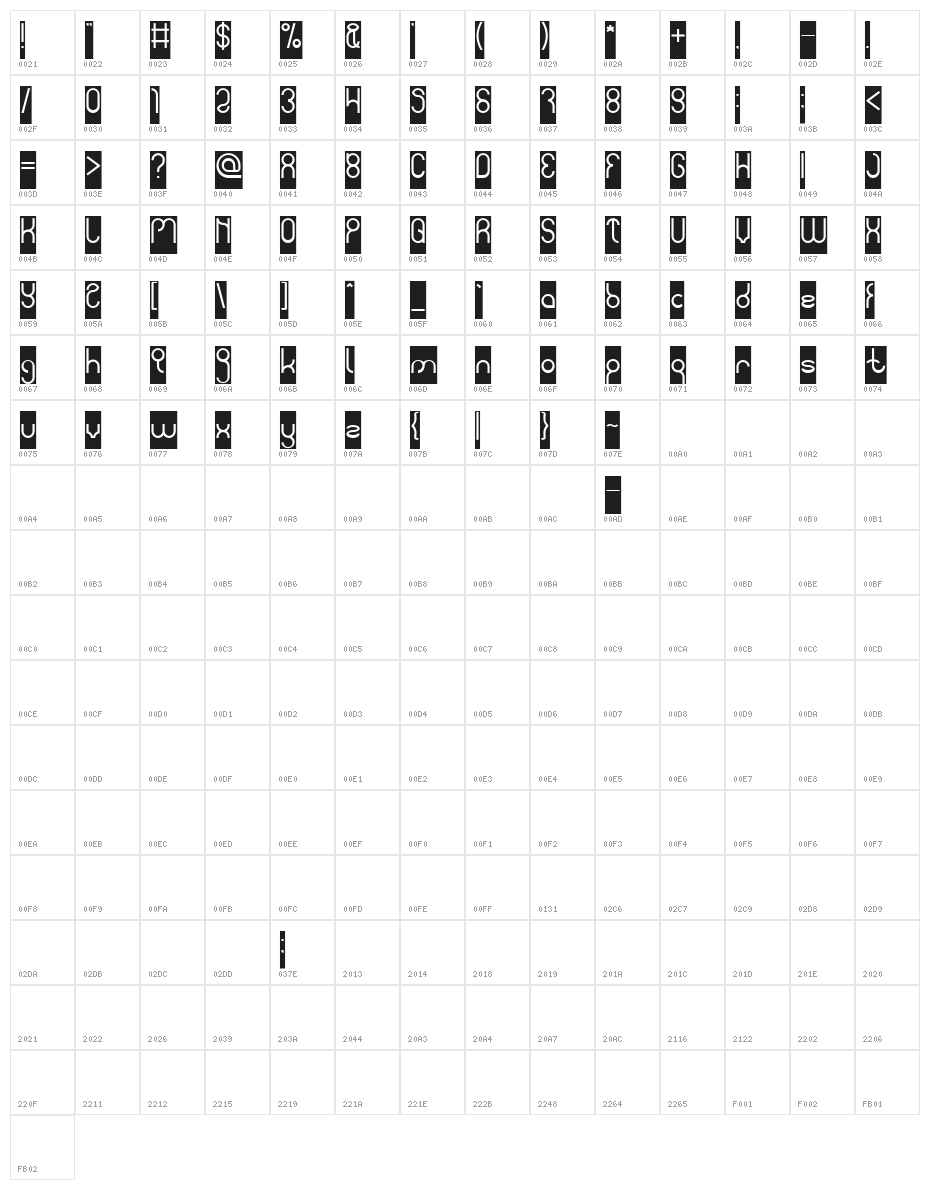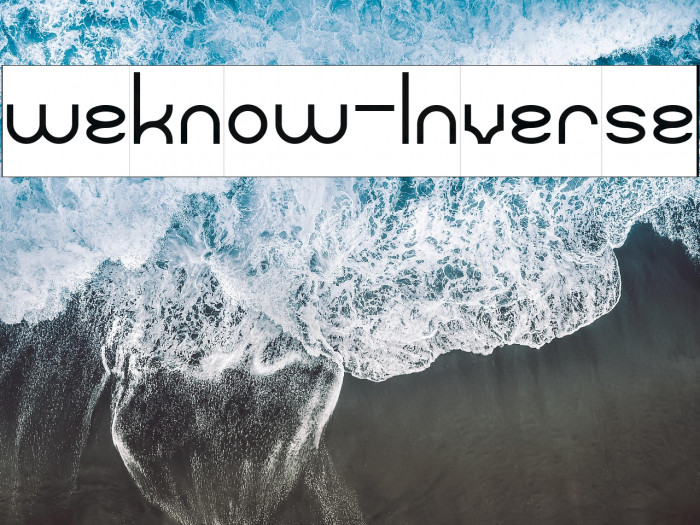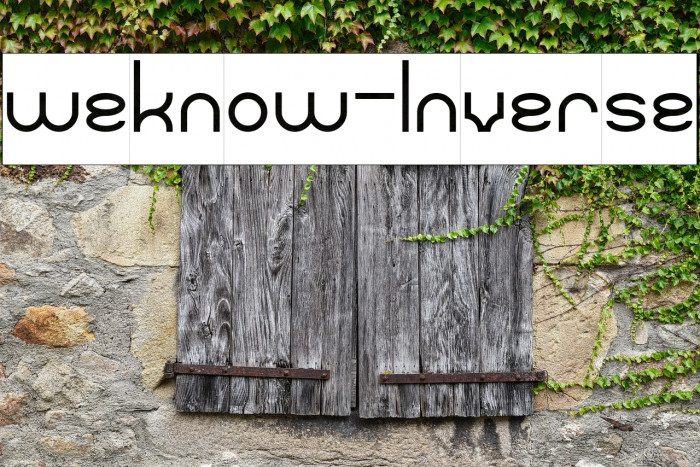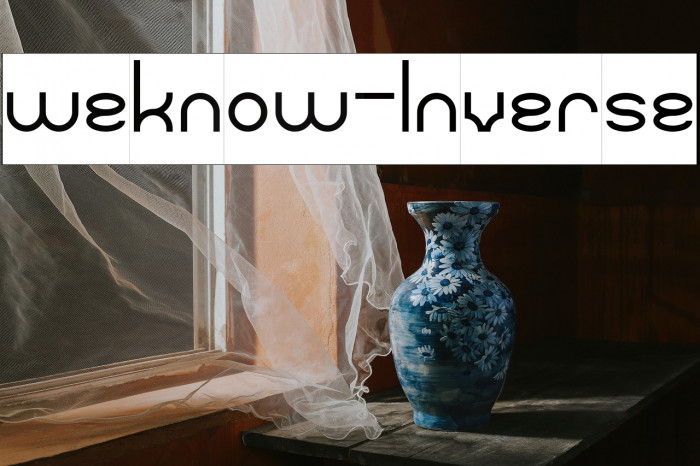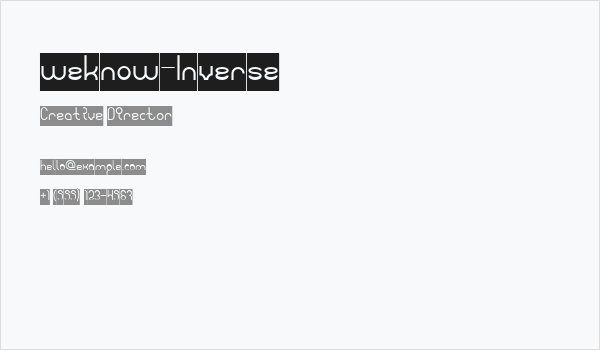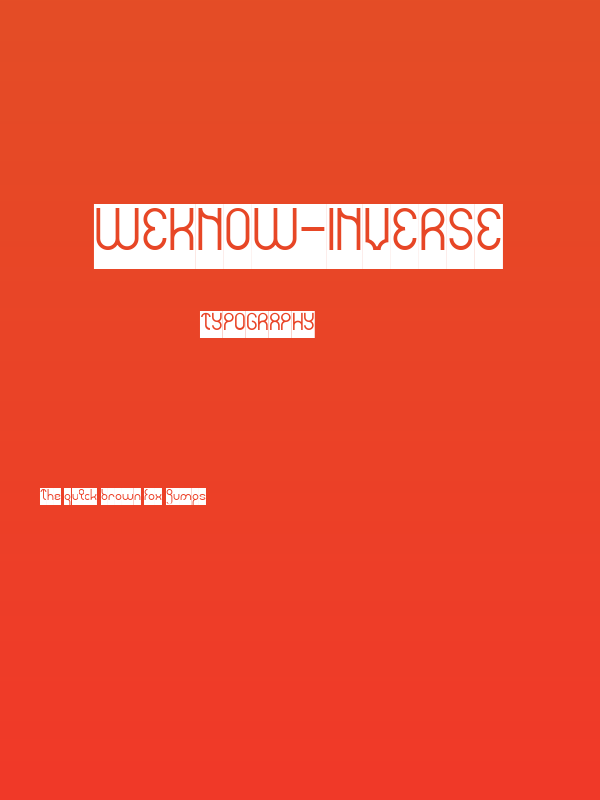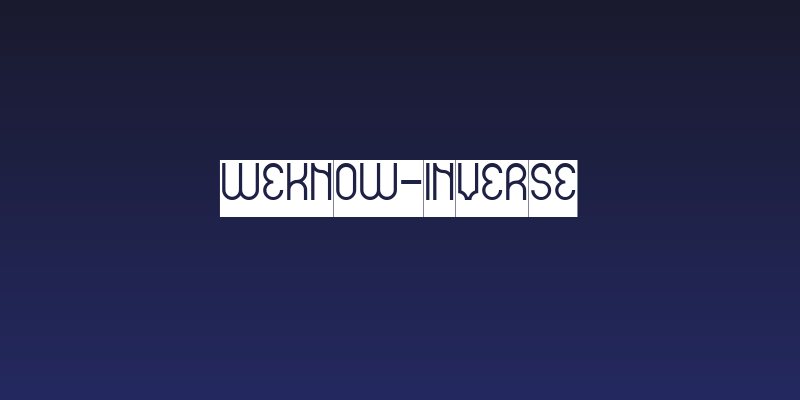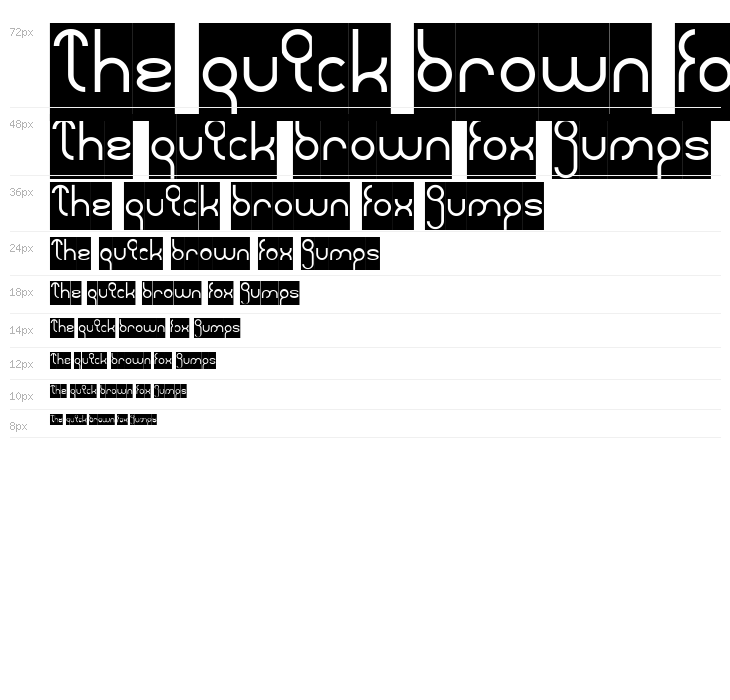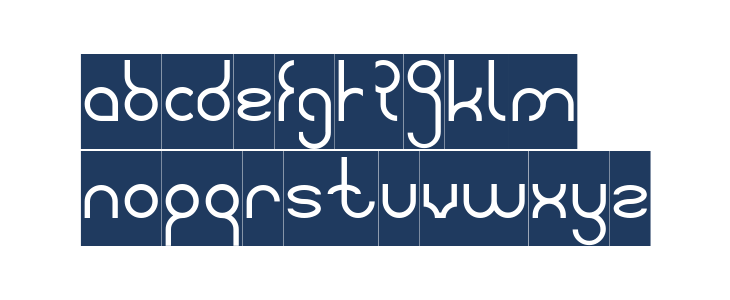
weknow-Inverse Font
weknow-Inverse Description
This font features a unique and modern design with a futuristic flair. The characters are crafted with a combination of rounded and angular elements, creating a distinctive look. Uppercase letters are bold and prominent, while lowercase letters maintain a consistent style with a slightly more delicate touch. The numbers are well-integrated, matching the overall aesthetic. Special characters are creatively designed, adding to the font's versatility. The overall appearance is clean and minimalistic, making it suitable for a variety of design projects.